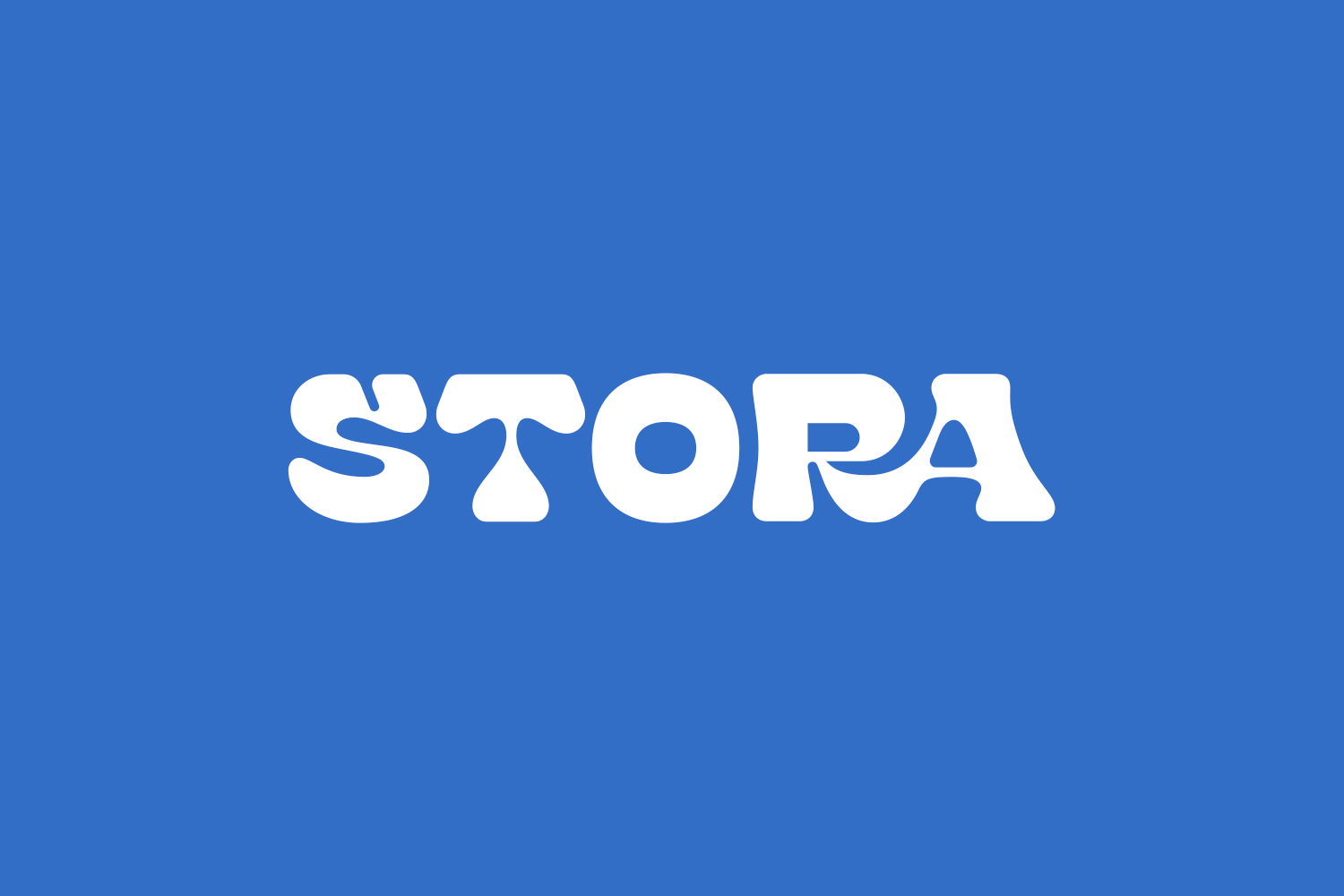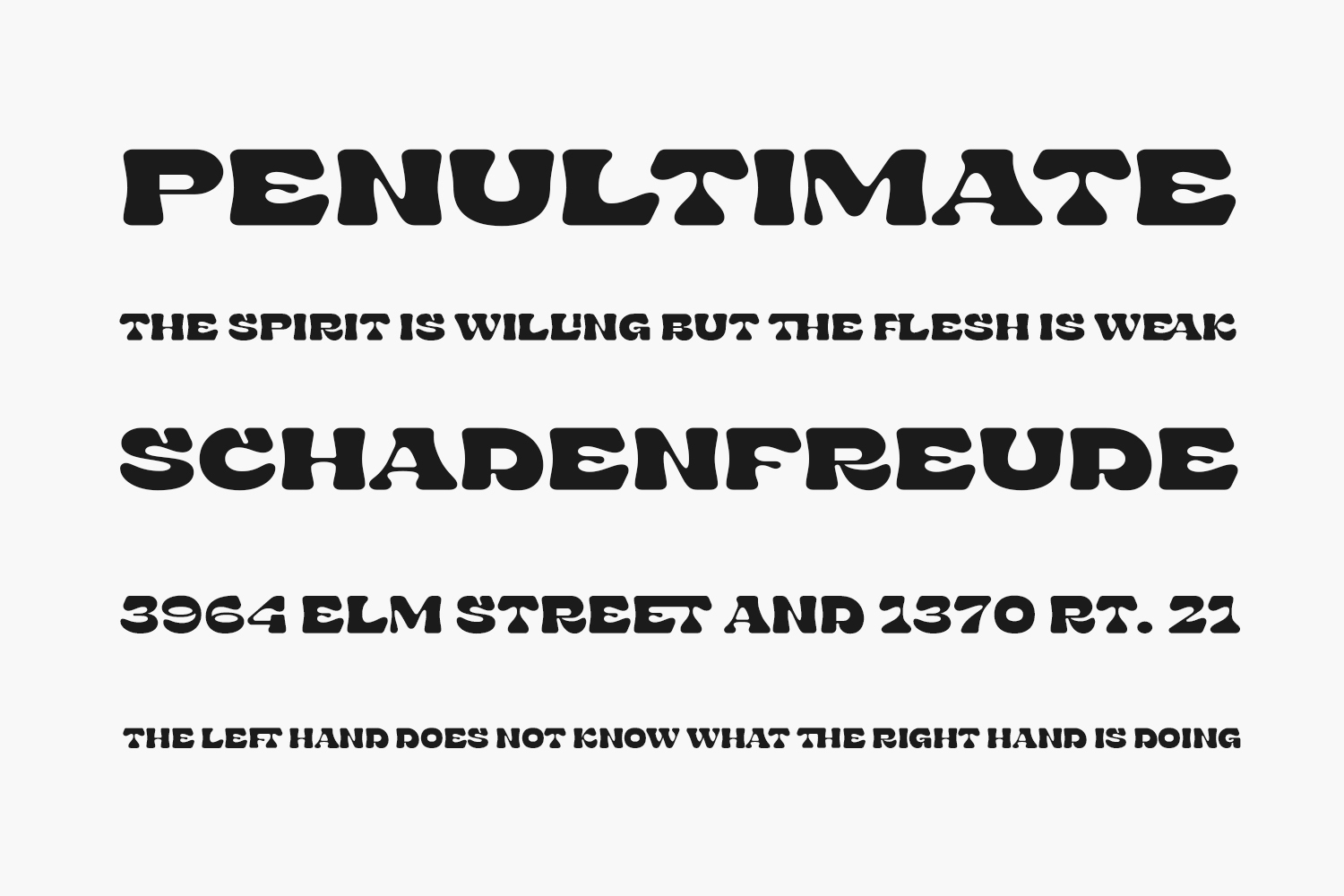
Stora Free Font Family is a new display typeface with mid-19th century styles with strong shapes that can handle many design projects. This font is perfect for an authentic retro feel on your branding purpose, advertising, poster design, book covers, headlines, prints, merchandise, websites, magazine, album covers, quote designs, and more. Stora Free Font Family was designed by Renof Olivian and is free for personal use only. Please purchase the full version for commercial use.